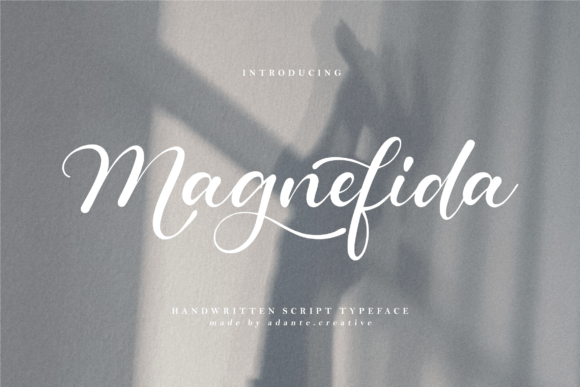
Magnefida: Your Key to Mesmerizing Designs
Welcome to the realm of Magnefida, where graceful strokes and exquisite curves intertwine to create a symphony of elegance. This enchanting handwritten font, crafted with the utmost care by the skilled artisans of creative.adante, is your gateway to captivating designs that evoke a timeless allure.
Whether you're crafting heartfelt greeting cards to express your deepest sentiments or designing captivating headlines to make a lasting impression, Magnefida is the perfect companion. Its versatility knows no bounds, seamlessly adapting to any creative endeavor with an effortless grace that will leave your audience spellbound.
Step into the world of Magnefida and discover the transformative power of a single letter. Witness the magic as your words dance across the page, imbued with a touch of romance and a hint of nostalgia. From the delicate curves of a heartfelt love letter to the commanding presence of a bold headline, Magnefida has the power to elevate your designs to new heights.
With Magnefida, the possibilities are limitless. Let your imagination soar and explore the endless horizons of creativity. Dive into a world where every letter becomes a masterpiece, where every word weaves a tale of enchantment. Magnefida is more than just a font; it's an invitation to embark on a journey of artistic expression that will captivate and inspire.
So, embrace the allure of Magnefida today and unlock the secrets of mesmerizing designs. Let the graceful strokes and exquisite curves guide you towards creative triumphs that will leave an indelible mark on the world.